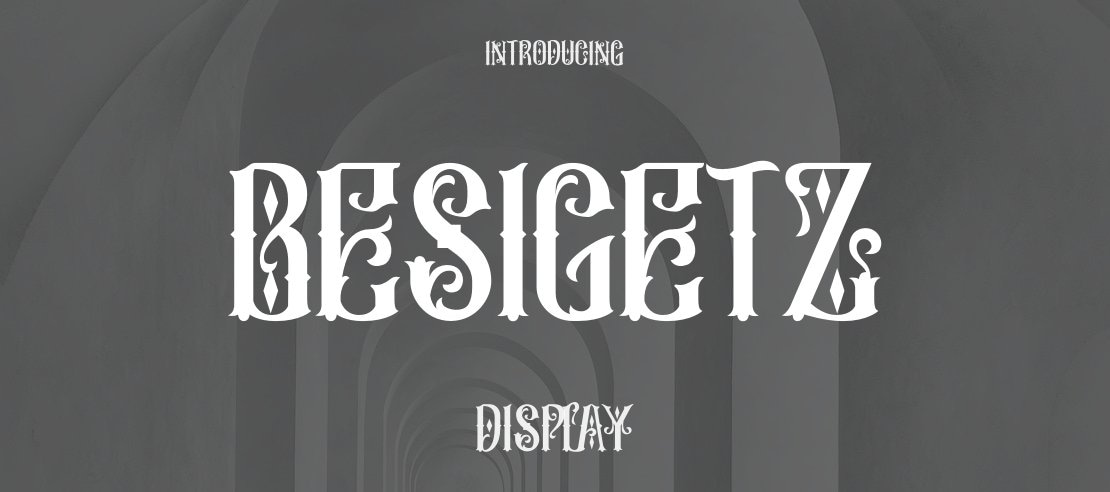
Besigetz Font
Besigetz Font is perfect for modern branding projects, logo design, headlines, poster designs, magazine covers, product packaging, fashion labels, website headers, social media graphics, advertising campaigns, business cards, and any design project that requires a bold and contemporary aesthetic.
What makes Besigetz Font exciting is its unique character design that combines modern typography trends with distinctive personality. The font's strong presence commands attention while maintaining excellent readability across various sizes and applications. Its versatile nature allows designers to create impactful visual statements that stand out in competitive markets, making it an essential tool for contemporary design work.
The Besigetz Font family typically includes uppercase and lowercase letters, numbers, punctuation marks, and special characters that provide complete typographic flexibility.